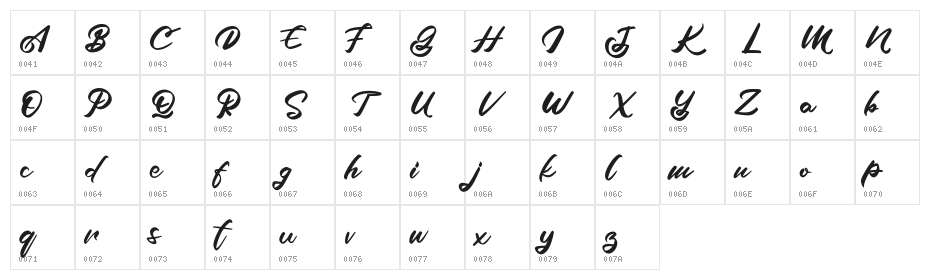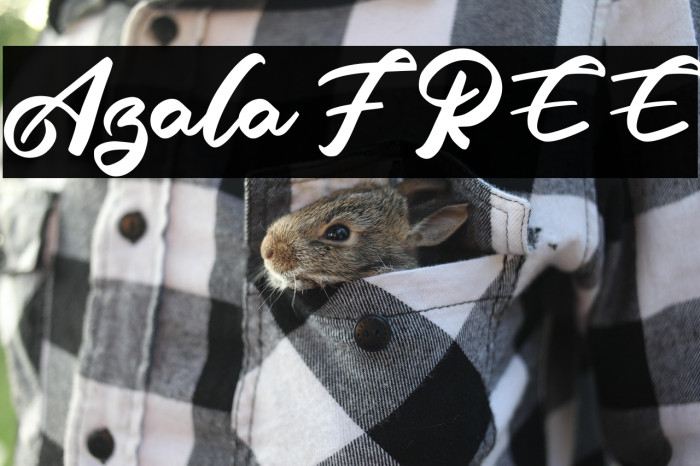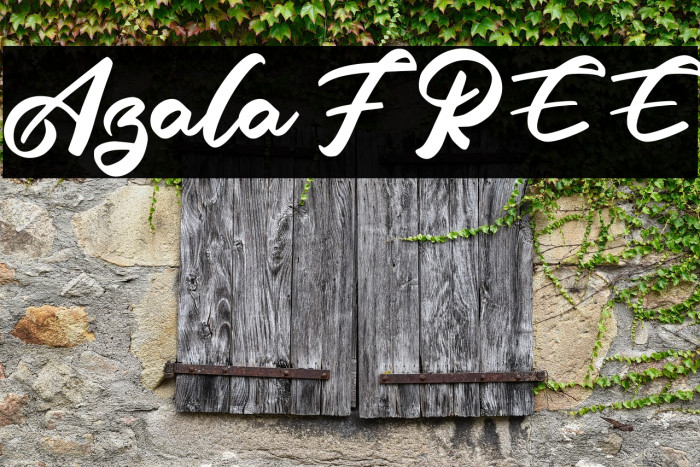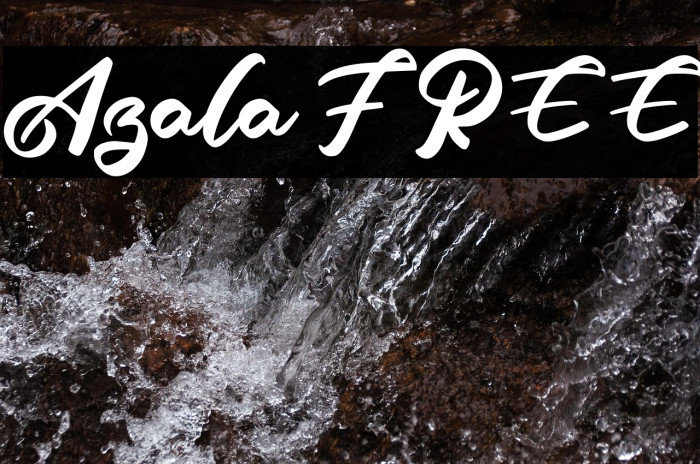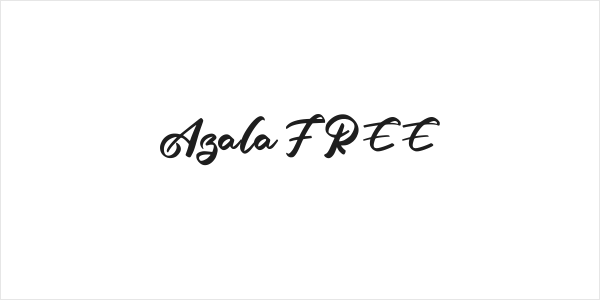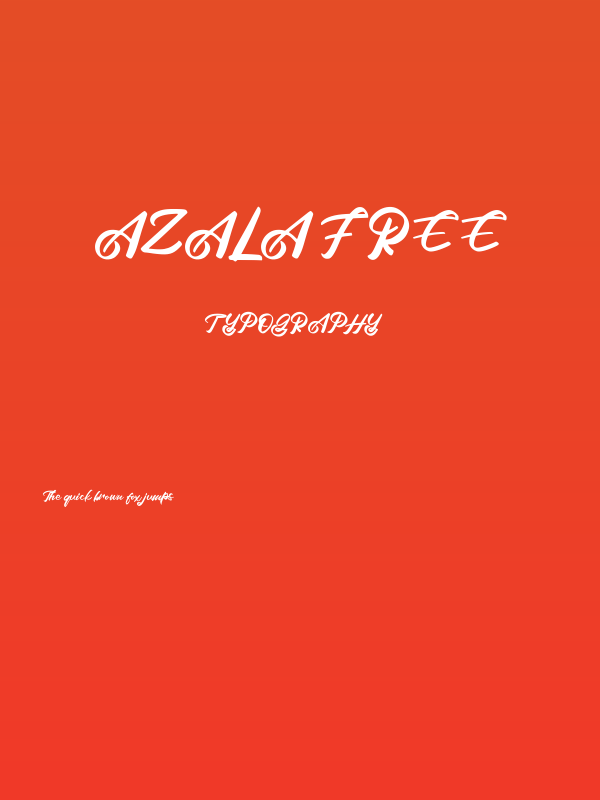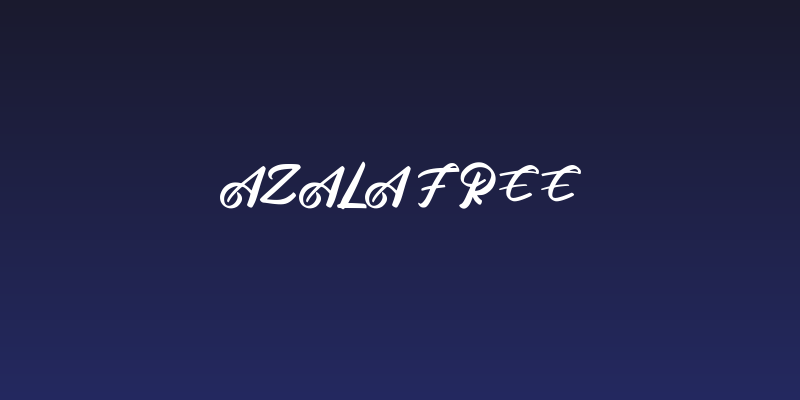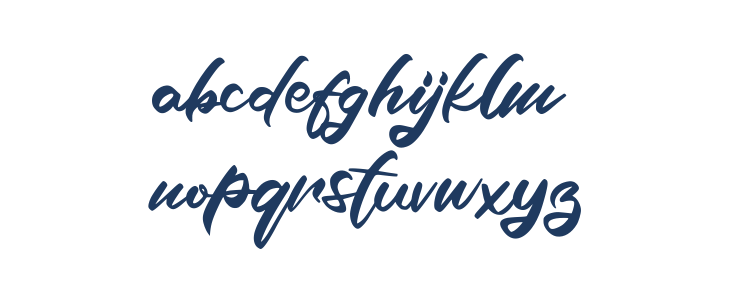
Azala FREE Font
Azala FREE Description
This font features a bold and expressive script style, characterized by its flowing and interconnected letterforms. The strokes are thick and dynamic, giving a sense of movement and elegance. The uppercase letters are particularly ornate, with flourishes that enhance their decorative appeal. The lowercase letters maintain a consistent style, with smooth curves and a slightly informal touch. Overall, the font exudes a sense of creativity and flair, making it suitable for projects that require a personal and artistic touch.
| Use Case | Logos, Headlines, Invitations |
| Proposed Projects | Ideal for wedding invitations, greeting cards, branding, and artistic projects that require a personal touch. |